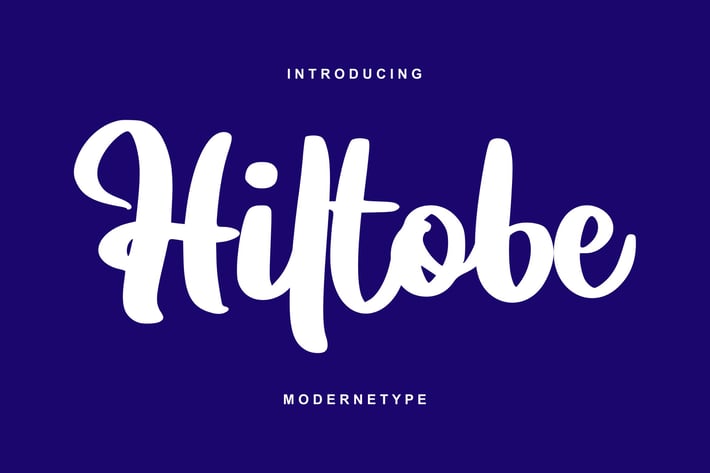
Hiltobe | Modernetype Script Font
Hiltobe | Modernetype Script Font with a calligraphy style, So beautiful on invitation like greeting cards, branding materials, business cards, quotes, posters, and more!